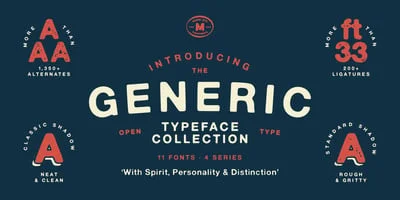
Generic Font
Generic Font is perfect for universal design systems, basic corporate communications, standardized documentation, budget-conscious projects, system fallback typography, template designs, educational materials, and versatile business applications requiring reliable functionality.
What makes Generic Font exciting is its universal reliability that embodies practical functionality and dependable performance through clean, straightforward letterforms. This versatile typeface features neutral character construction with balanced proportions that provide consistent readability across all platforms and applications, making it ideal for projects requiring cost-effective typography solutions and broad compatibility in their fundamental communications.
The Generic Font family includes essential weights and standard character sets with comprehensive language support that enhance the universal aesthetic with practical styling options and dependable typography elements for basic applications.
This reliable typeface delivers exceptional versatility and cost-effective functionality, making Generic Font an essential resource for budget-conscious and universal design projects. The font's practical character makes it perfect for organizations wanting to achieve professional presentation without premium typography costs. Small businesses and educational institutions particularly appreciate its ability to provide consistent quality and reliable performance across all standard applications. The efficiently designed letterforms ensure optimal readability while maintaining professional appearance in all basic communication needs from business correspondence to educational handouts. Whether you're creating materials for startup companies or developing standardized template systems, this font provides the perfect combination of practical reliability and cost-effective presentation. Creative professionals consistently choose this typeface for projects requiring that ideal balance of functional dependability and budget efficiency, making it invaluable for universal communications that prioritize both practical performance and economic sustainability in today's cost-conscious business environment.